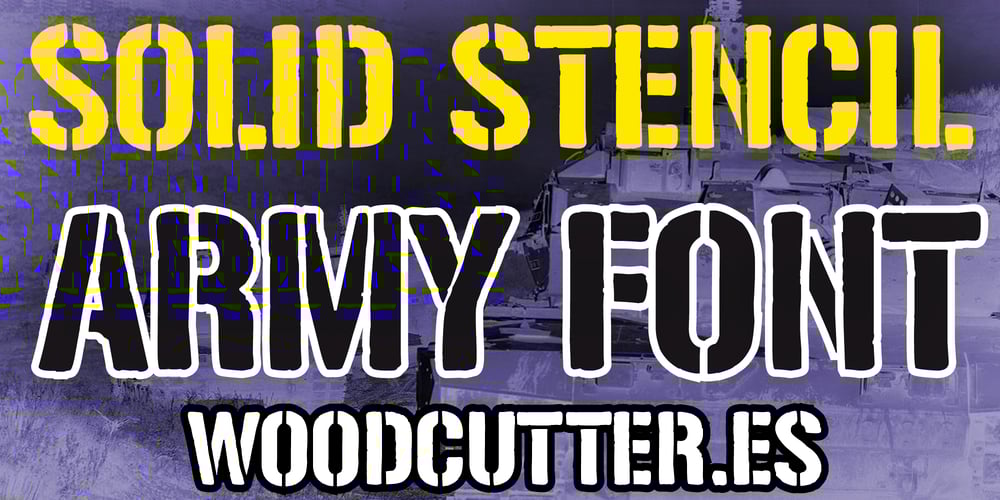
Solid Stencil 2023 Font Family was designed by Jordi Manero and published by Woodcutter. Solid Stencil 2023 contains 1 styles and family package options. “Solid Stencil 2023” is a stencil army font with imperfect contours, reminiscent of being used on military vehicles. Its uppercase letters are striking and exhibit a worn and rough appearance, adding authenticity and character to any design. Ideal for projects aiming to convey strength, robustness, and a military feel, this typeface is perfect for posters, logos, and any work requiring a touch of toughness and resilience.